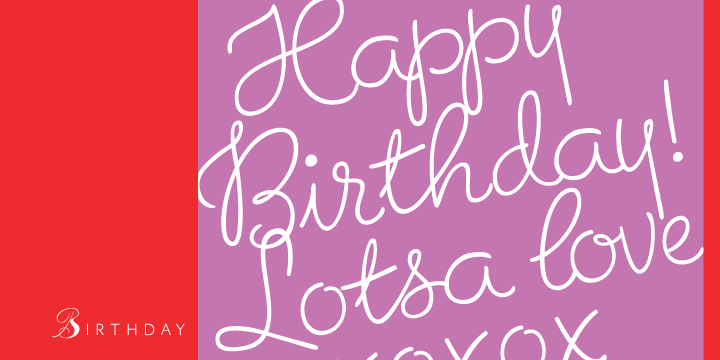
Birthday Pro is a script font published by Canada Type.
What do you imagine the ideal casual invitation font would look like? It has to be cheerful, inviting, legible, creative, and loads of fun. But first and foremost, it has to look like real handwriting. Fonts seeming like real handwriting are always a major task, and although Canada Type already has plenty of fonts that solve the “looks like handwriting” issue in a variety of ways, we’re once again raising the bar a little higher with this one.
Birthday is a massive package that crosses the traditional font/handwriting solution of 2-letter ligatures and waltzes into the land of 3-letter combinations. Plenty of them, too! The complete Postscript and True Type versions of Birthday ship with no less than five separate fonts full of nothing but ligatures. And for even more realism, an alternates font is also included in the package, for a total of seven fonts of happy handwriting that can be used anywhere and everywhere personalization is of importance to a layout.
For layout artists with advanced typography tools that take advantage of the power of OpenType, Birthday Pro is a wunderkind. All the individual letter alternates are accessible through the Stylistic Alternates feature, the 2-letter ligatures through the standard Ligatures feature, and the 3-letter ligatures via the Discretionary Ligatures feature (for the technically inclined: this includes a nice liga-to-dlig crossover, where the maximum number of possible ligated letters is automatically chosen at the push of a button).